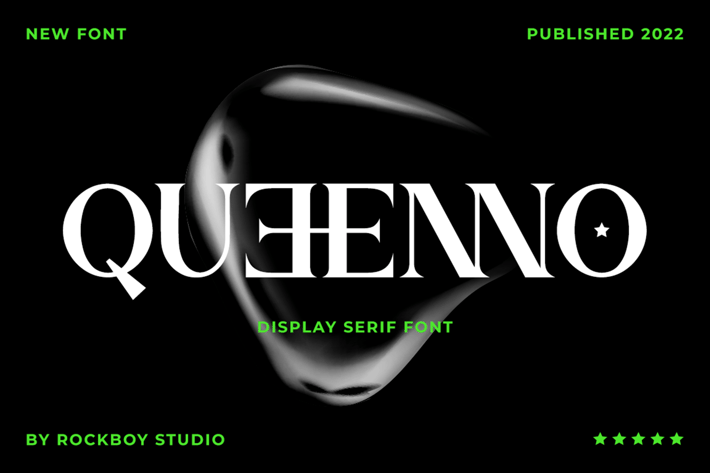
Queenno - Logo Font
Queenno is a distinct, elegant, and authentic serif font. Masterfully designed to become a true favorite, this font has the potential to bring each of your creative ideas to the highest level!